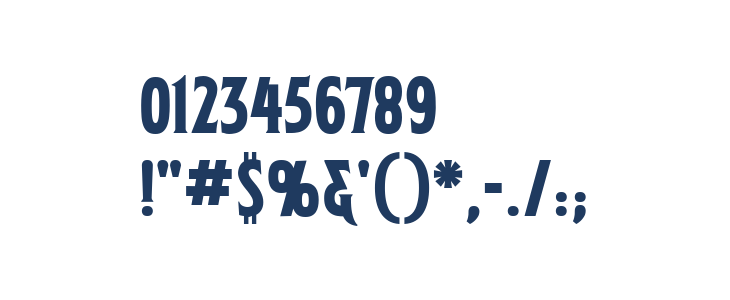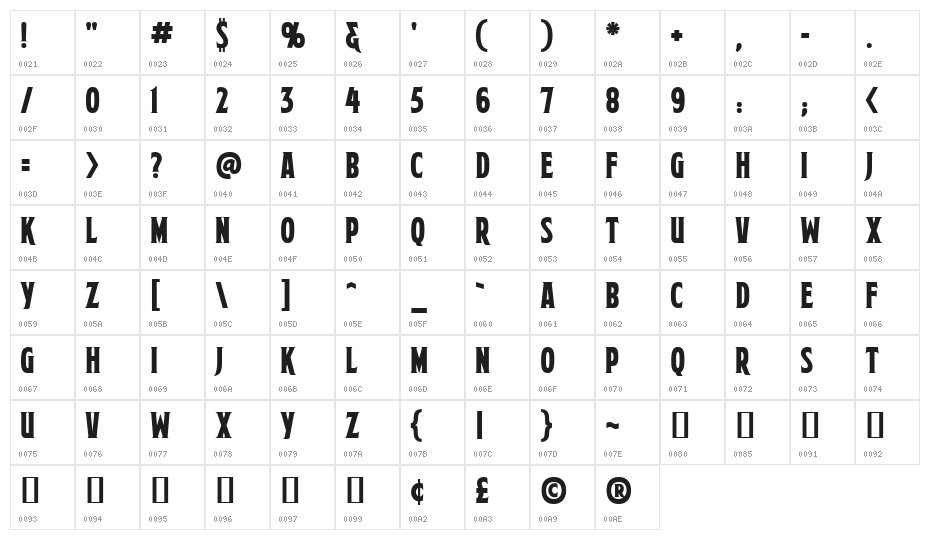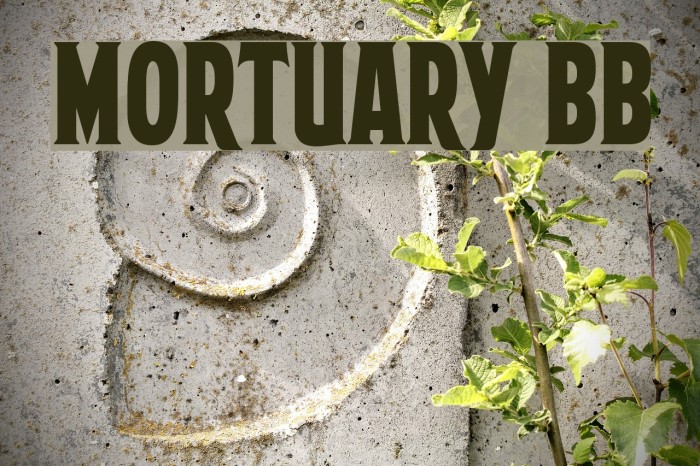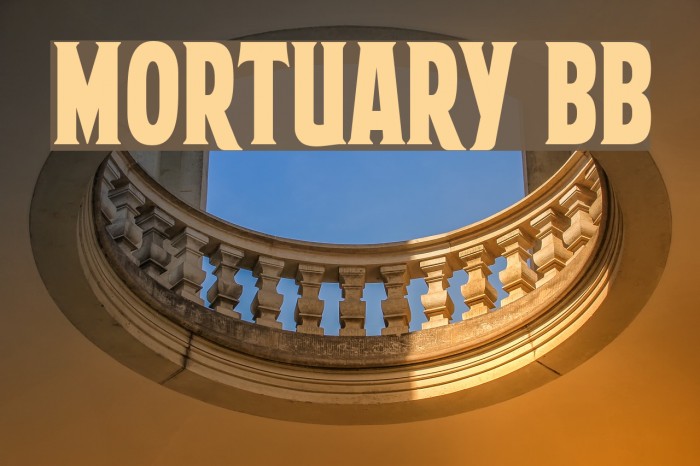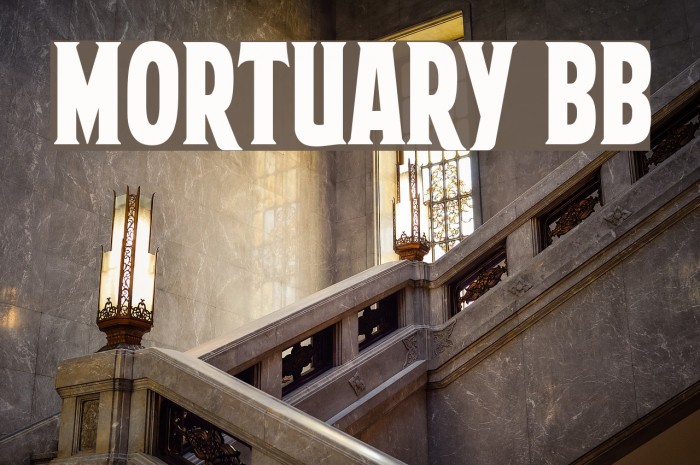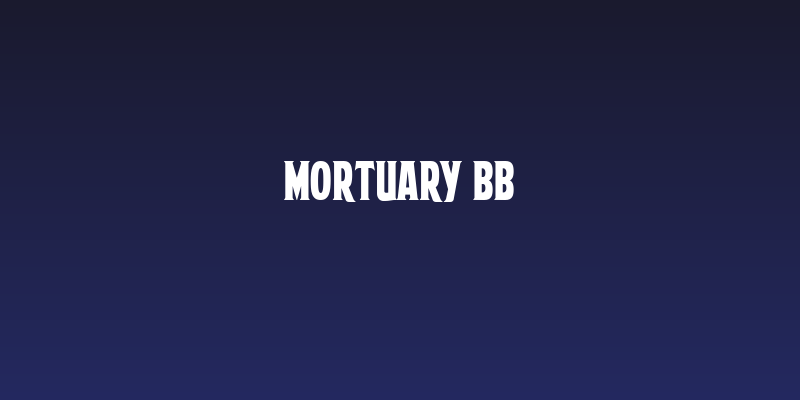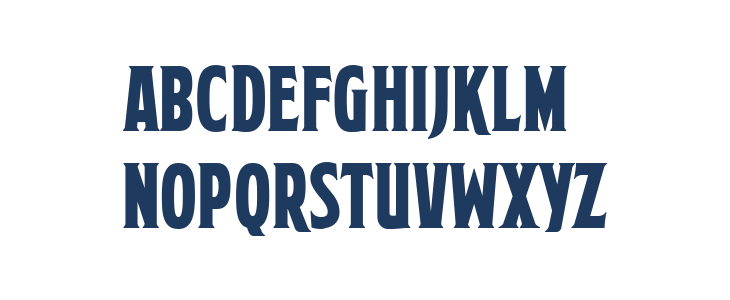
Mortuary BB Font
Mortuary BB Description
This font features bold, dramatic strokes with a distinctively vintage and gothic flair. The characters are tall and imposing, with sharp serifs and a slightly condensed appearance. The uppercase letters exhibit a strong presence, while the lowercase letters maintain a consistent style that complements the uppercase. The numerals are equally bold, ensuring readability and impact. Special characters are designed to match the overall aesthetic, making this font suitable for attention-grabbing headlines and designs that require a touch of drama and elegance.
| Overall Style | Vintage, Gothic |
| Proposed Projects | Ideal for posters, book covers, branding, and any design requiring a dramatic and vintage touch. |